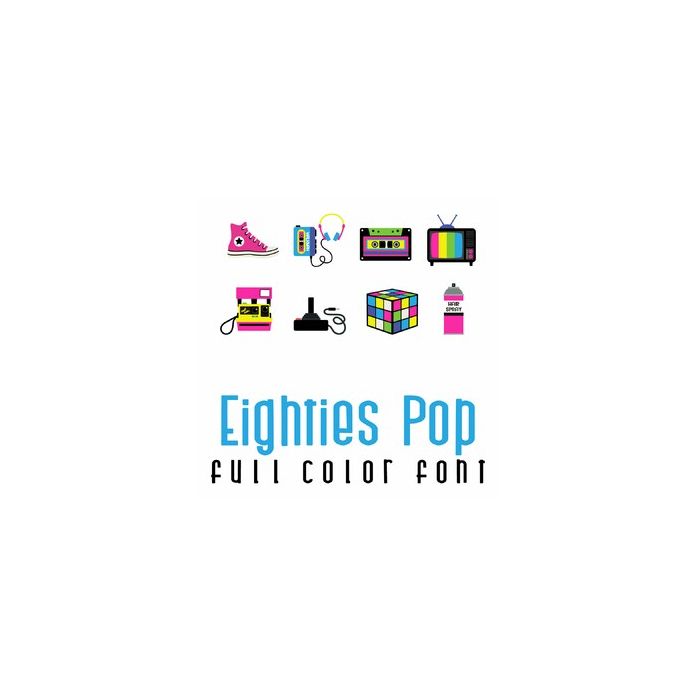
This adorable full-color doodlebat font features 26 iconic eighties pop images. Perfect for cards, crafts, gifts, decor, scrapbook pages, planner stickers, and more!